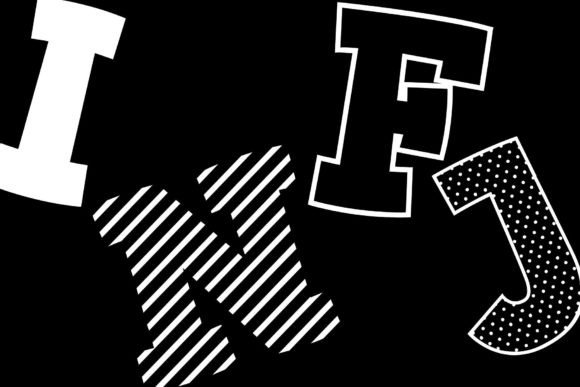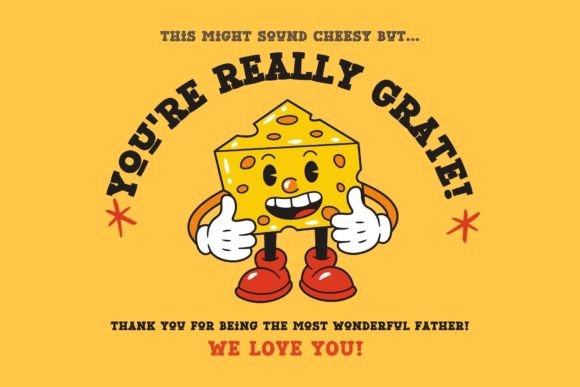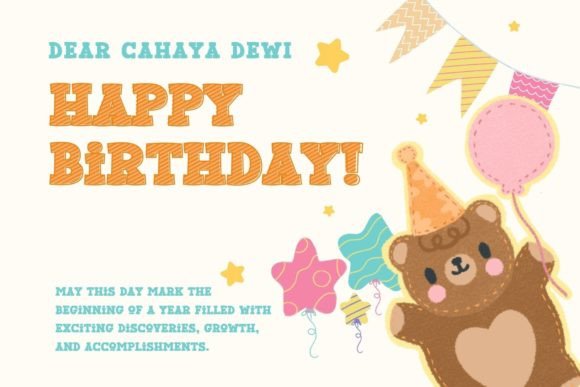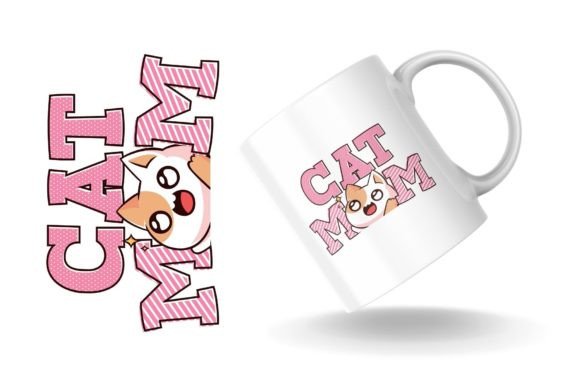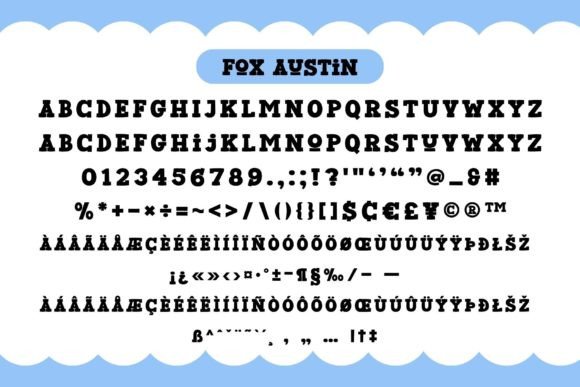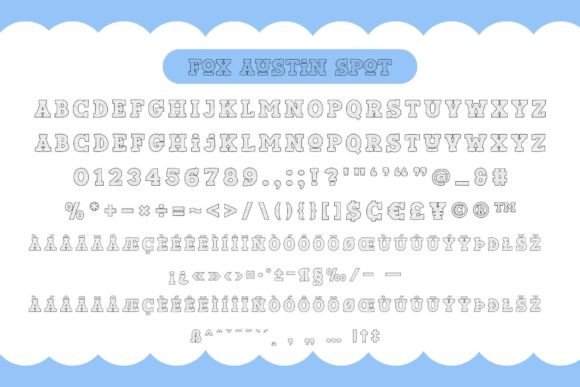
Introducing Fox Austin Font: The Ultimate Display Font for Creative Designs
Are you tired of using the same old fonts for your designs? Look no further than Fox Austin Font, a 4-style font that adds a captivating and energetic touch to your creations. This cool, cute, and playful display font is perfect for designers and crafters who want to make their work stand out from the crowd.
What Makes Fox Austin Font So Special?
Fox Austin Font is a unique and vibrant display font that is designed to grab attention. Its main feature is its expressive design, which allows you to create attention-grabbing headlines, t-shirt typography, banners, product labels, and more. With its four different styles, you can experiment with different looks and feels to find the perfect fit for your design.
Fox Austin Font is versatile and can be used in a variety of design projects, including:
- Publications: Add a pop of personality to your magazine or newspaper with Fox Austin Font.
- Menus: Make your restaurant or cafe menu stand out with this fun and playful font.
- Logos: Create a memorable logo for your business or brand with Fox Austin Font.
- Business Cards: Add a touch of whimsy to your business cards and make them more memorable.
- T-Shirts: Print Fox Austin Font on t-shirts for a unique and eye-catching design.
Key Features of Fox Austin Font
Here are some key features that make Fox Austin Font a must-have for designers and crafters:
- 4 style font: Experiment with different styles to find the perfect fit for your design.
- Vibrant and expressive design: Grab attention with this bold and playful font.
- Perfect for display text: Use Fox Austin Font for headlines, titles, and other display text.
- Unique and quirky: Add a touch of personality to your designs with this one-of-a-kind font.
Why Choose Fox Austin Font?
With so many fonts to choose from, why choose Fox Austin Font? Here are just a few reasons:
- Easy to read: Despite its playful design, Fox Austin Font is easy to read, even in smaller sizes.
- High-quality design: This font is designed with high-quality graphics, ensuring it looks great in any design.
- Versatile: Use Fox Austin Font in a variety of design projects, from digital to print.
- Unique: This font is one-of-a-kind, ensuring your designs stand out from the crowd.
Tips for Using Fox Austin Font
Here are a few tips for getting the most out of Fox Austin Font:
- Experiment with different styles: Try out different styles to find the perfect fit for your design.
- Use it for display text: Fox Austin Font is perfect for headlines, titles, and other display text.
- Pair it with other fonts: Try pairing Fox Austin Font with other fonts for a unique and interesting look.
- Don’t be afraid to get creative: Fox Austin Font is a versatile font that can be used in a variety of creative ways.
Fox Austin Font is a unique and versatile display font that adds a captivating and energetic touch to any design. With its four different styles, vibrant and expressive design, and ease of use, it’s perfect for designers and crafters who want to make their work stand out. Whether you’re creating publications, menus, logos, business cards, or t-shirts, Fox Austin Font is a great choice. So why wait? Download Fox Austin Font today and start creating amazing designs!